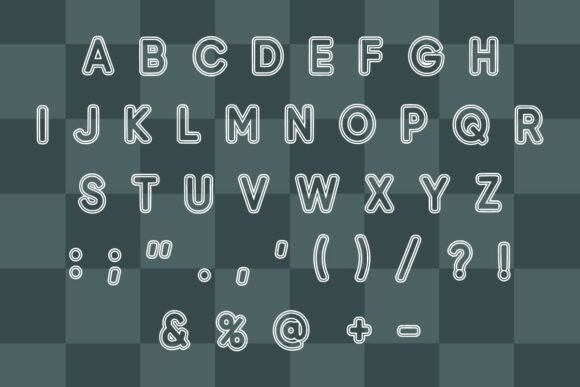
School Outline Regular Font: A Playful and Cheerful Display Font for Winter and Holiday Designs
The School Outline Regular Font is a delightful and charming display font that is perfect for adding a touch of whimsy and fun to any design project. With its soft, rounded letterforms and double-outline style, this font radiates charm and cheerfulness, making it especially suited for winter and holiday-themed designs. In this article, we’ll explore the features and benefits of the School Outline Regular Font, and how it can be used to bring a cozy, lighthearted feel to a variety of creative projects.
What is School Outline Regular Font?
School Outline Regular Font is a playful double-outline display font that features soft, rounded letterforms. Its whimsical style makes it perfect for adding a touch of fun and personality to any design project. The font’s double-outline style gives it a unique and eye-catching appearance, while its rounded letterforms add a touch of warmth and friendliness.
Key Features of School Outline Regular Font
- Playful and whimsical style: School Outline Regular Font has a playful and whimsical style that makes it perfect for adding a touch of fun and personality to any design project.
- Double-outline style: The font’s double-outline style gives it a unique and eye-catching appearance.
- Soft and rounded letterforms: The font’s soft and rounded letterforms add a touch of warmth and friendliness to any design project.
- Perfect for winter and holiday designs: School Outline Regular Font is especially suited for winter and holiday-themed designs, bringing a cozy, lighthearted feel to any project.
Uses for School Outline Regular Font
School Outline Regular Font is a versatile font that can be used for a variety of creative projects, including:
- Product packaging: Add a touch of whimsy and fun to your product packaging with School Outline Regular Font.
- Festive invitations: Create festive and fun invitations for holidays and special events with School Outline Regular Font.
- Quotes and posters: Use School Outline Regular Font to add a touch of personality and whimsy to quotes and posters.
- T-shirts and apparel: School Outline Regular Font is perfect for adding a fun and playful touch to t-shirts and apparel.
- Labels and stickers: Use School Outline Regular Font to create fun and colorful labels and stickers.
- Classroom materials: School Outline Regular Font is perfect for creating fun and engaging classroom materials, such as worksheets and activity sheets.
- Seasonal merchandise: Use School Outline Regular Font to create festive and fun seasonal merchandise, such as holiday cards and gift tags.
Benefits of Using School Outline Regular Font
There are many benefits to using School Outline Regular Font in your design projects, including:
- Adds a touch of whimsy and fun: School Outline Regular Font adds a touch of whimsy and fun to any design project.
- Perfect for winter and holiday designs: School Outline Regular Font is especially suited for winter and holiday-themed designs.
- Versatile: School Outline Regular Font can be used for a variety of creative projects.
- Easy to read: School Outline Regular Font is easy to read, making it perfect for use in a variety of contexts.
- Unique and eye-catching: School Outline Regular Font has a unique and eye-catching appearance that will make your design projects stand out.
Tips for Using School Outline Regular Font
Here are a few tips for using School Outline Regular Font in your design projects:
- Use it for headings and titles: School Outline Regular Font is perfect for use in headings and titles, where its playful and whimsical style can really shine.
- Pair it with other fonts: School Outline Regular Font can be paired with other fonts to create a unique and eye-catching combination.
- Use it in digital and print applications: School Outline Regular Font can be used in both digital and print applications, making it a versatile font for any design project.
- Experiment with different colors and textures: School Outline Regular Font can be used with a variety of colors and textures to create a unique and eye-catching design.
School Outline Regular Font is a playful and cheerful display font that is perfect for adding a touch of whimsy and fun to any design project. With its soft, rounded letterforms and double-outline style, this font radiates charm and cheerfulness, making it especially suited for winter and holiday-themed designs. Whether you’re crafting classroom materials or seasonal merchandise, School Outline Regular Font offers a fun, approachable aesthetic that enhances creative expression.
- What is School Outline Regular Font?: School Outline Regular Font is a playful double-outline display font featuring soft, rounded letterforms.
- What is School Outline Regular Font used for?: School Outline Regular Font can be used for a variety of creative projects, including product packaging, festive invitations, quotes, t-shirts, labels, posters, and more.
- Is School Outline Regular Font easy to read?: Yes, School Outline Regular Font is easy to read, making it perfect for use in a variety of contexts.
- Can School Outline Regular Font be used in digital and print applications?: Yes, School Outline Regular Font can be used in both digital and print applications.